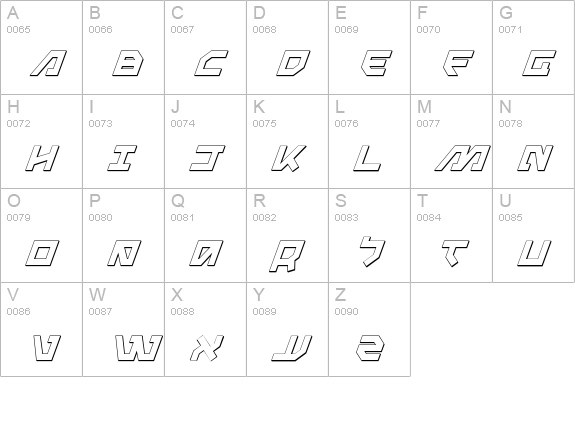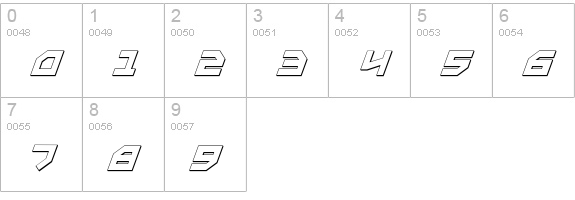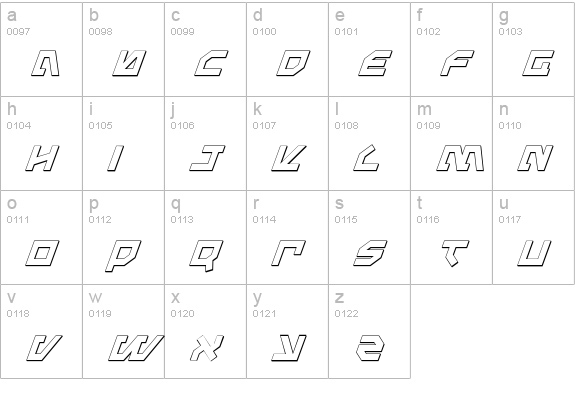
Metal Storm 3D Italic is a distinctive, italic variant in the Metal typeface family \xE2\x80\x94 well suited to design and typography projects.
Metal Storm 3D Italic font is a stunning display typeface that exudes power and modernity. Its three-dimensional effect adds depth and dimension to any design project, making it perfect for posters, logos, and headlines that need to make a strong impact. The sleek and futuristic design of Metal Storm 3D Italic font is sure to catch the eye and leave a lasting impression. Best of all, Metal Storm 3D Italic font is available for free download at FontsMarket.com. This means you can easily add this dynamic font to your collection without any cost, making it a valuable asset for any designer looking to elevate their work with a bold and unique typeface. Don't miss out on the opportunity to use Metal Storm 3D Italic font in your projects and make a statement with your typography. Download it now and unleash its power in your designs!